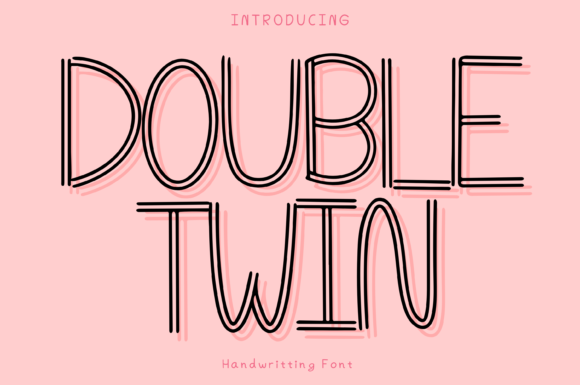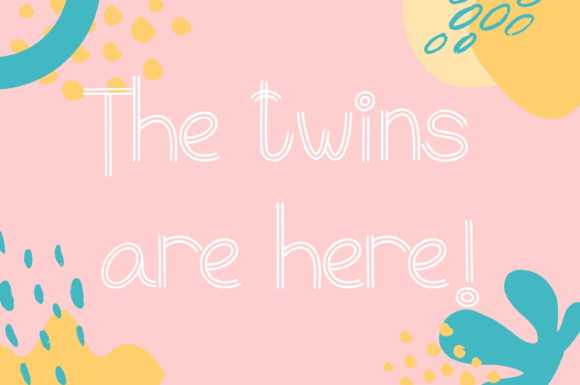
About Double Twin Style Font
“Double Twin” is a whimsical and clean handwritten font that injects a sense of playfulness into your designs. Its unique style makes it a versatile choice for a wide range of projects. Adding this font to your creative ideas can have a transformative effect, making them truly stand out and capture attention.
The font’s whimsical and clean letterforms bring a touch of fun and lightheartedness to your designs. Whether you’re working on branding, packaging, invitations, posters, or digital content, “Double Twin” infuses your creations with a charming and distinct quality.
The font’s adaptability enables it to effortlessly complement various design concepts. Its whimsical nature can infuse creativity into both casual and more formal projects. By incorporating “Double Twin” into your designs, you introduce an element of uniqueness and visual appeal that helps your creations make a lasting impression.
In essence, “Double Twin” is more than just a font—it’s a creative tool that enhances your ideas with a touch of whimsy. Its playful characters and clean appearance make it a valuable asset for designers aiming to create captivating and visually distinct designs that stand out in a crowd.